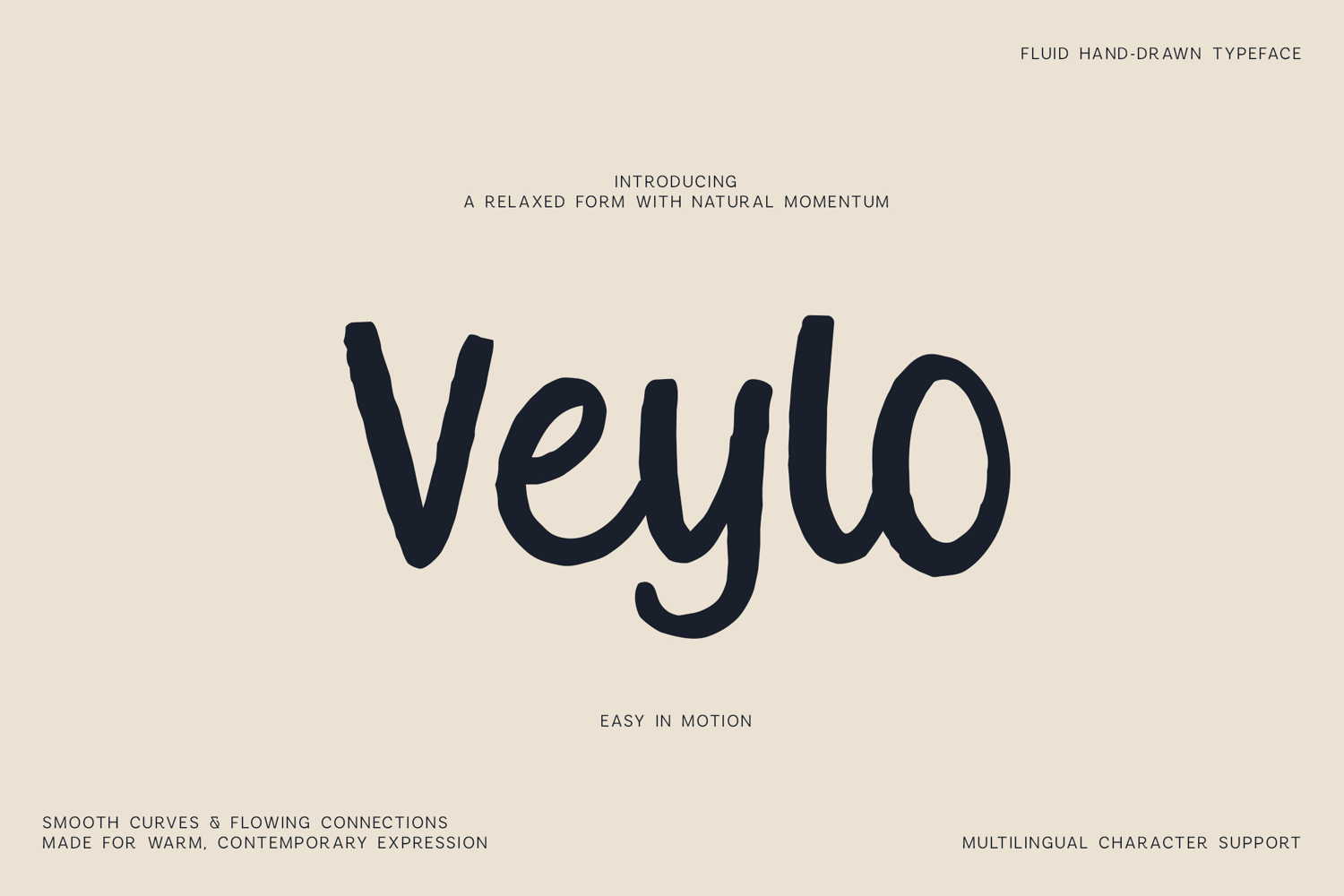
Veylo Fluid Handwritten Font
Veylo is a modern hand-drawn font created with smooth curves, flowing connections, relaxed proportions, and a natural handwritten rhythm. Its friendly and organic appearance gives designs a handcrafted feeling while maintaining enough clarity and structure for professional creative work.
The font is ideal for logo design, brand identities, packaging, labels, posters, apparel, merchandise, social media templates, editorial projects, advertisements, invitations, quotes, stationery, product design, and expressive headlines. Veylo is especially effective when you want typography to feel warm, spontaneous, approachable, and contemporary.
Its naturally varied letterforms help create the look of genuine handwriting rather than rigid digital typography. The extended character set also makes Veylo suitable for multilingual projects and international branding.
- Uppercase alphabet
- Lowercase alphabet
- Numbers
- Symbols
- Accented characters
- Extended multilingual support